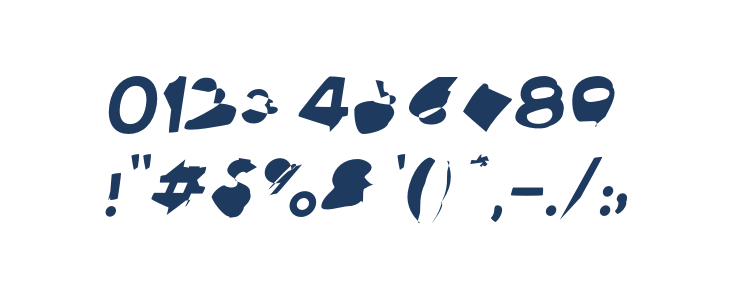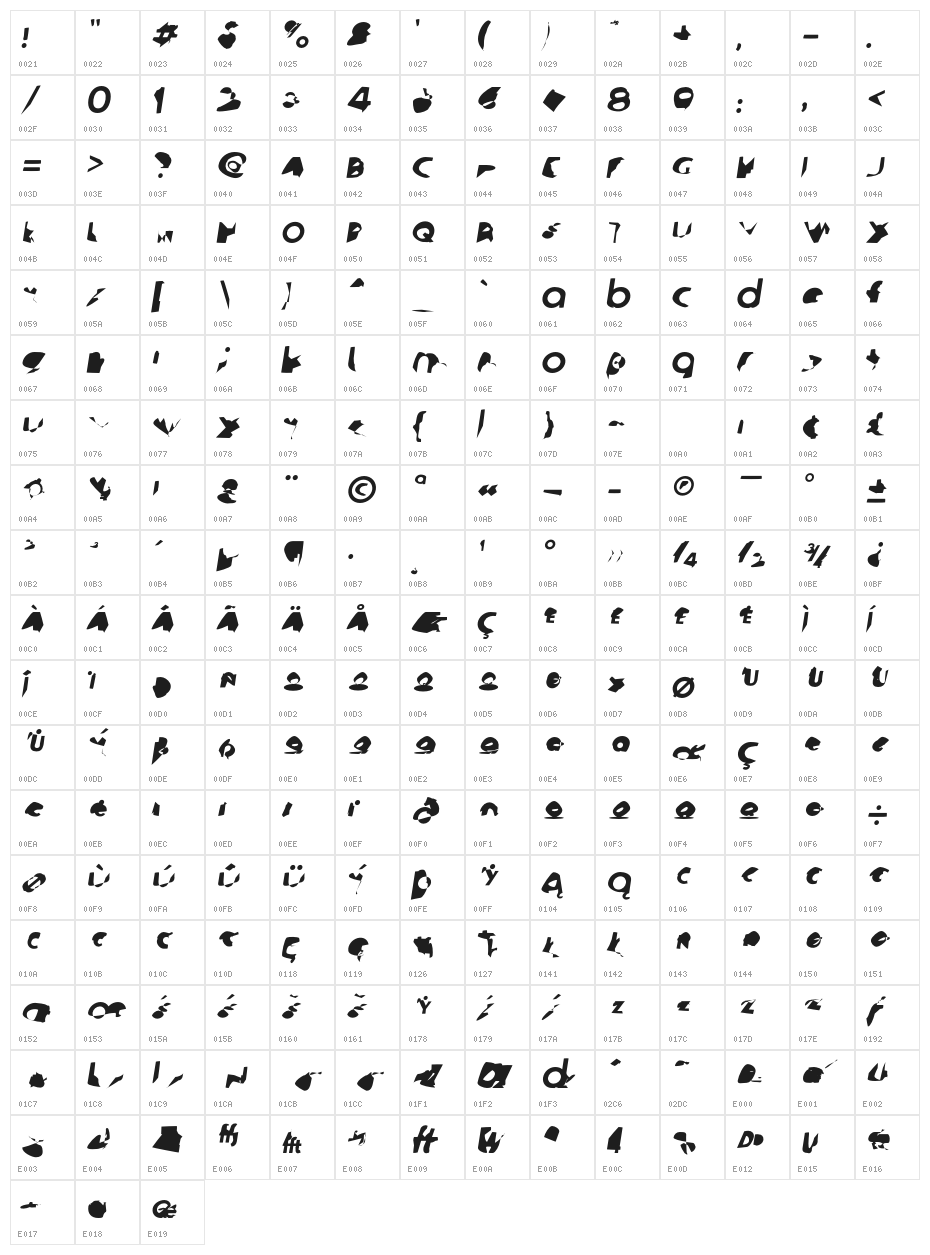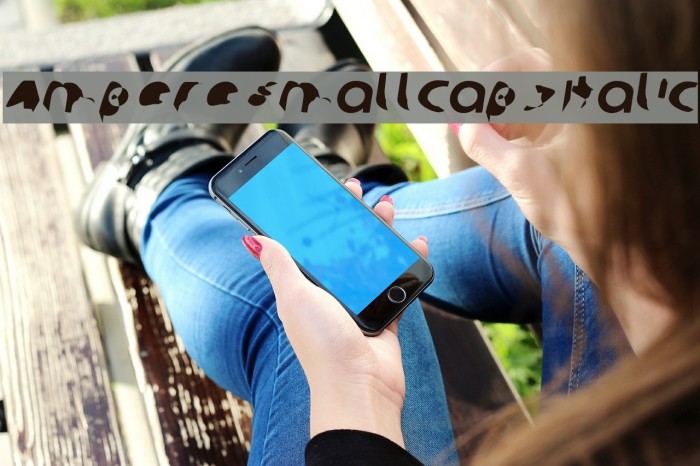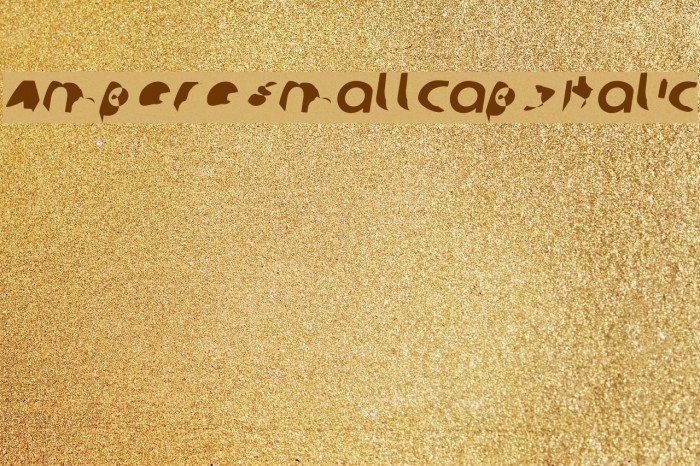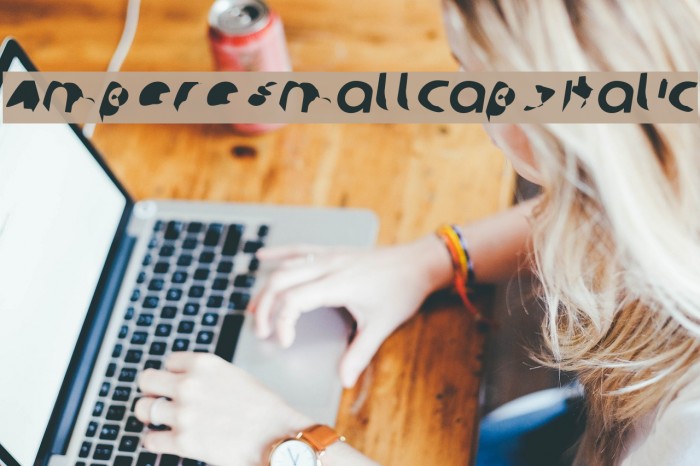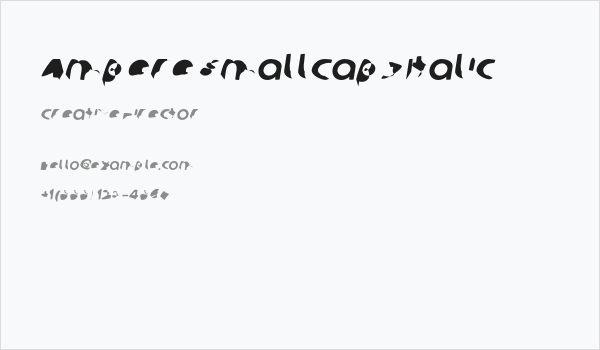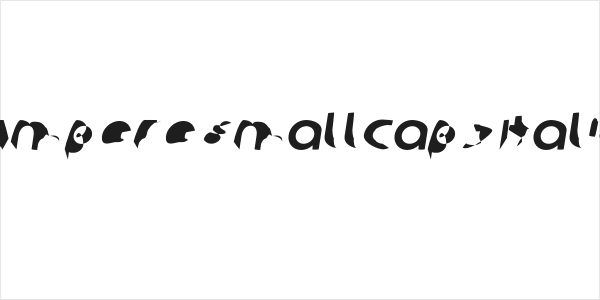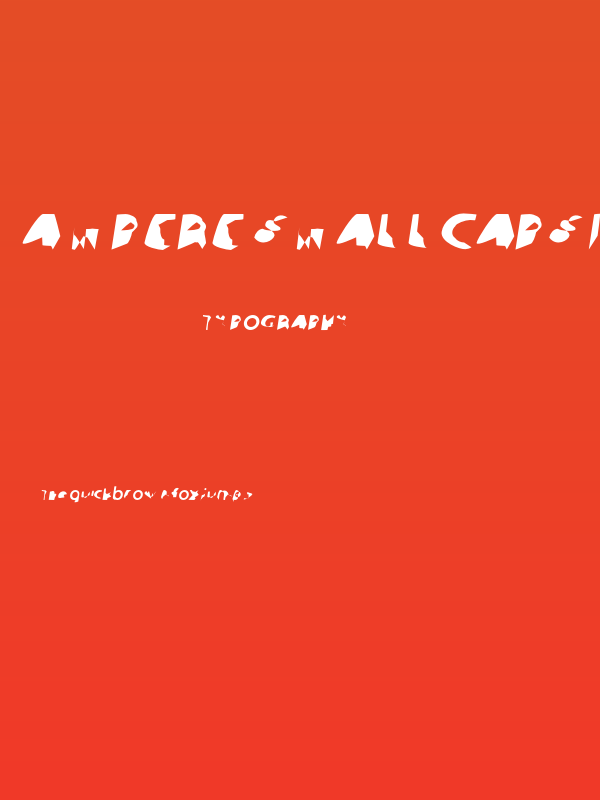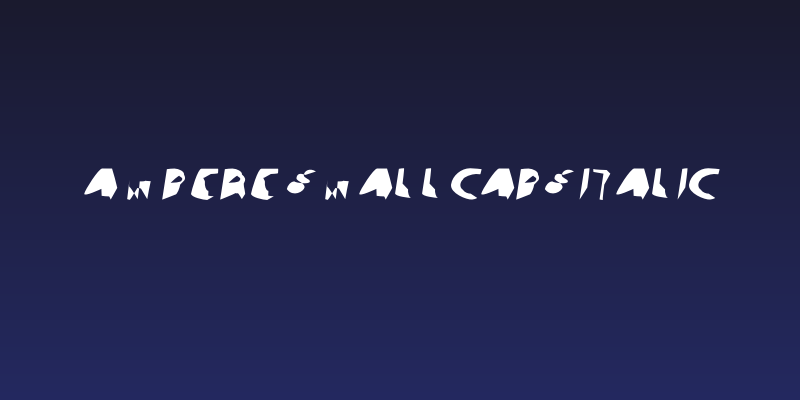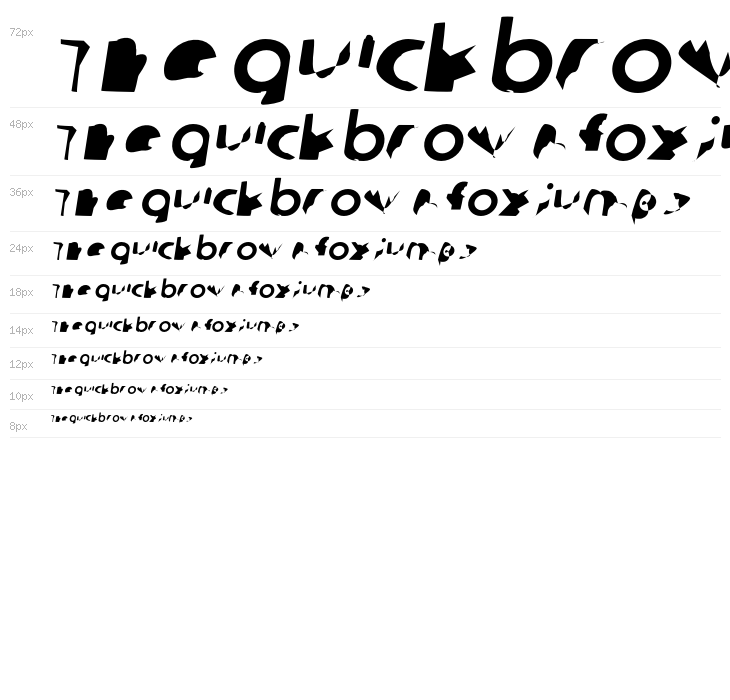
Ampere SmallCaps Italic Font
Ampere SmallCaps Italic Description
This font features a highly abstract and fragmented design, with each character appearing as though it has been shattered or distorted. The uppercase and lowercase letters, as well as the numbers and special characters, maintain a consistent style that emphasizes bold, jagged edges and irregular shapes. The font's unique appearance makes it stand out, offering a visually striking and unconventional aesthetic. It is not suitable for readability in body text but can be used effectively for artistic or decorative purposes where a bold statement is desired.
Overall StyleModern, Abstract
Use CaseLogos, Headlines, Artistic designs
Proposed ProjectsIdeal for artistic projects, album covers, posters, or any design work that requires a bold, unconventional look.